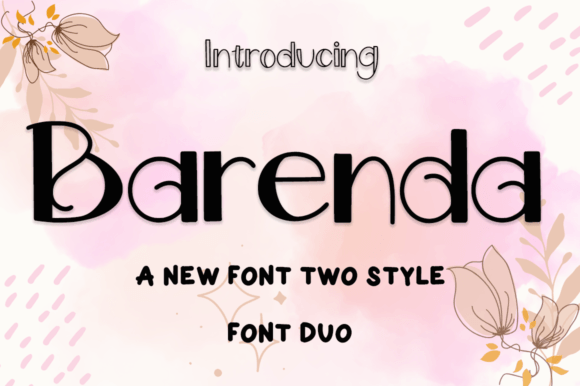
Prepare yourself to be captivated by the Barenda Font, a duo of elegance and style that's perfect for your next project. Let the graceful curves and inspiring lines of this script font infuse your designs with effortless beauty. And when you need to make a statement, let the striking presence of the bold display font command attention like never before.
Dare to break creative boundaries and infuse your designs with the perfect touch of sophistication and flair. Barenda Font is the key to unlocking your design potential. Unleash your imagination and let the Barenda Font carry you to new heights of creative expression. It's the ultimate tool for turning your artistic vision into stunning reality.
Crafted with the utmost precision and attention to detail, Barenda Font is the perfect fusion of elegance and expressiveness. Each character exudes a graceful allure that will elevate your designs to the next level. Prepare to see your creative ideas flourish and take on a life of their own as Barenda Font weaves its magic.
So, why settle for ordinary when you can embrace the extraordinary? Join the countless designers who have discovered the transformative power of Barenda Font. Dive into a world of endless possibilities and unlock your true creative potential. Let Barenda Font be your guiding light as you embark on a journey of artistic expression like never before. Embrace the beauty, embrace the boldness, and embrace the endless possibilities. Barenda Font awaits your touch.